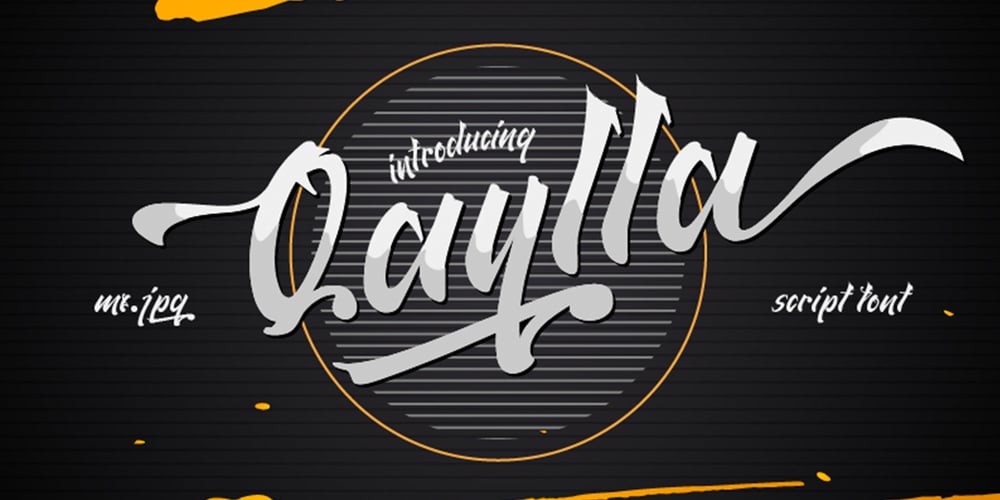
Qaylla Font Family was designed by Mix Jpg and published by MIX.Jpg. Qaylla contains 1 styles and family package options. Qaylla is a handwritten font inspired by 80s-90s music, retro, disco, grunge, and pop culture.Best used for posters, logos, clothing, books, invitations and more.Qaylla includes a complete set of upper and lower case letters, numbers, various punctuation marks and ligatures. All lowercase letters include the beginning and end of swash, giving your projects a realistic handwriting style. All uppercase letters include the beginning of swash, which makes the font look great!